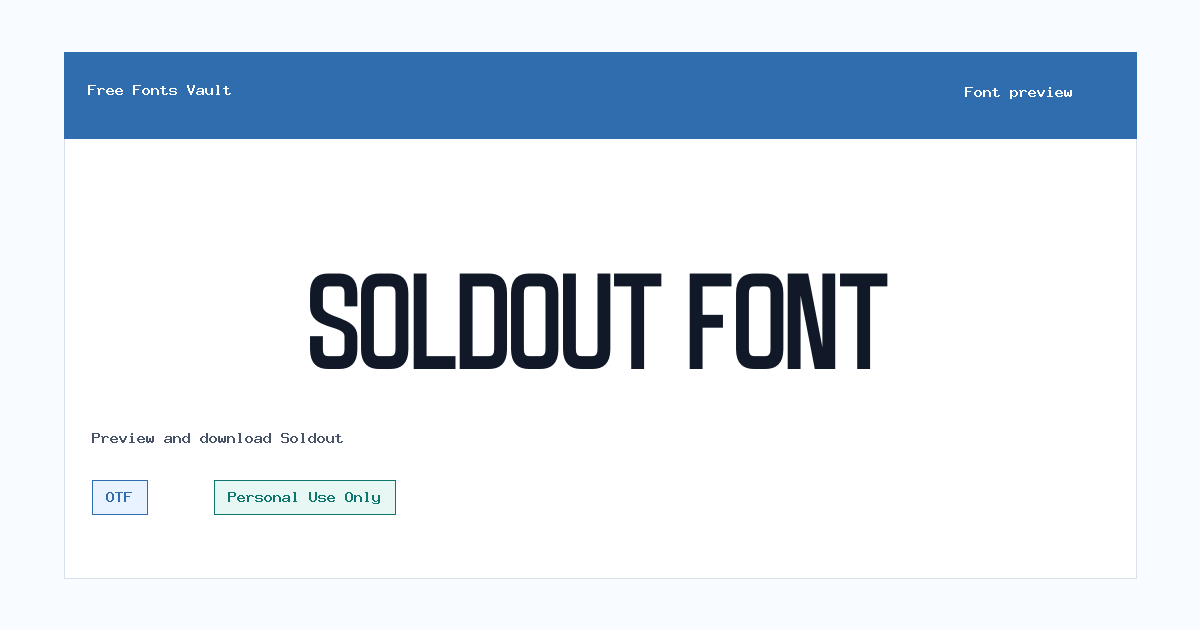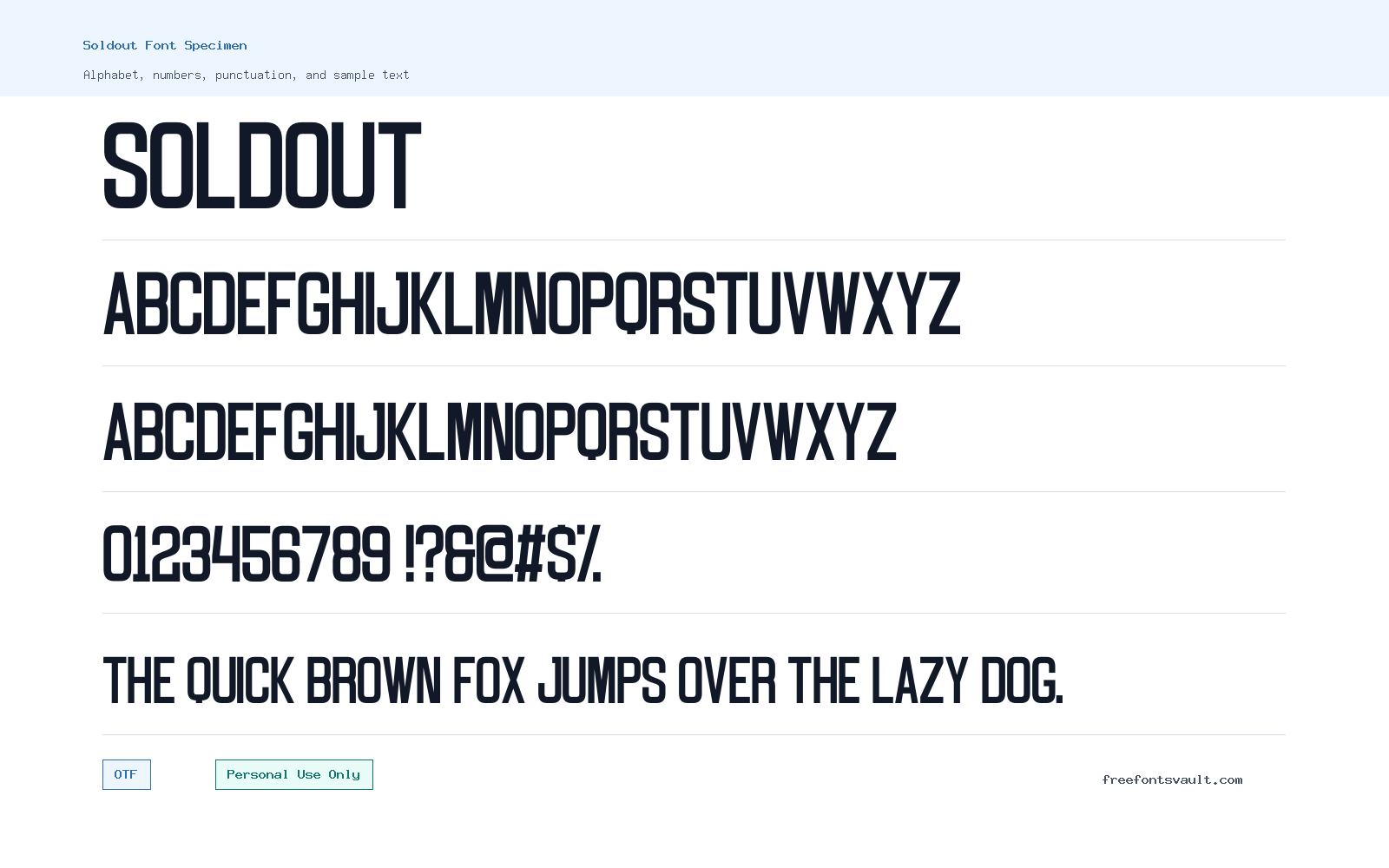
Soldout
- Designer Muhammad Rizki Utomo
Soldout font.
Soldout is a personal-use condensed sans serif font with a vintage display feel, made for short, bold text rather than long reading blocks.
About Soldout Font
Soldout works best when you need a narrow, attention-grabbing type style for a title, label, logo draft, poster headline, social graphic, packaging concept, or web mockup. Its regular OTF style gives you a compact display voice without needing multiple weights. Because the design is condensed, it can help fit strong wording into tight layouts, but it should still be tested carefully at the size you plan to use. Narrow fonts can look sharp in large headings, yet become harder to read when the text is small, tightly tracked, or placed over a busy image.
Use Soldout for short phrases where the shape of the word matters: brand name sketches, sale graphics, music artwork, badge designs, event posters, hero sections, and editorial titles. For logo work, it is useful for personal concepts and presentation mockups, but the license limit matters before anything is used commercially. Pair it with a calm, readable sans serif or serif for body copy so Soldout can stay focused on the headline. If your design has several lines of text, keep Soldout for the key phrase and use a simpler companion font for details such as dates, prices, descriptions, captions, and navigation labels.
- Condensed sans serif display style suited to headlines, posters, badges, and compact title layouts
- Practical for mockups, logo concepts, social graphics, packaging drafts, and web hero text where short wording is used
- Personal logo concepts and brand mockups
- Social media images and announcement graphics
- Web hero sections and landing page mockups
- Labels, badges, stickers, and packaging drafts
- Short display text where a condensed vintage tone fits
Soldout is credited to Muhammad Rizki Utomo. One third-party listing also connects the font page with Craftedtype, so the exact public credit should be checked if you plan to publish a designer or foundry attribution beyond the known designer name.
Preview your own words before downloading. Try uppercase and lowercase versions, adjust letter spacing, and check the font at the actual size of your design. For readable layouts, use Soldout for the main headline and pair it with a neutral text font for paragraphs, menus, captions, and legal copy. Avoid setting long paragraphs in this font, especially on mobile screens or low-contrast backgrounds.
What kind of font is Soldout?
Soldout is a condensed sans serif display font with a vintage-style direction. It is better suited to headlines and design accents than long body text.
Who designed Soldout?
Soldout is credited to Muhammad Rizki Utomo.
What fonts pair well with Soldout?
Pair Soldout with a simple sans serif or a readable serif. Let Soldout handle the headline, then use the companion font for body text and smaller details.